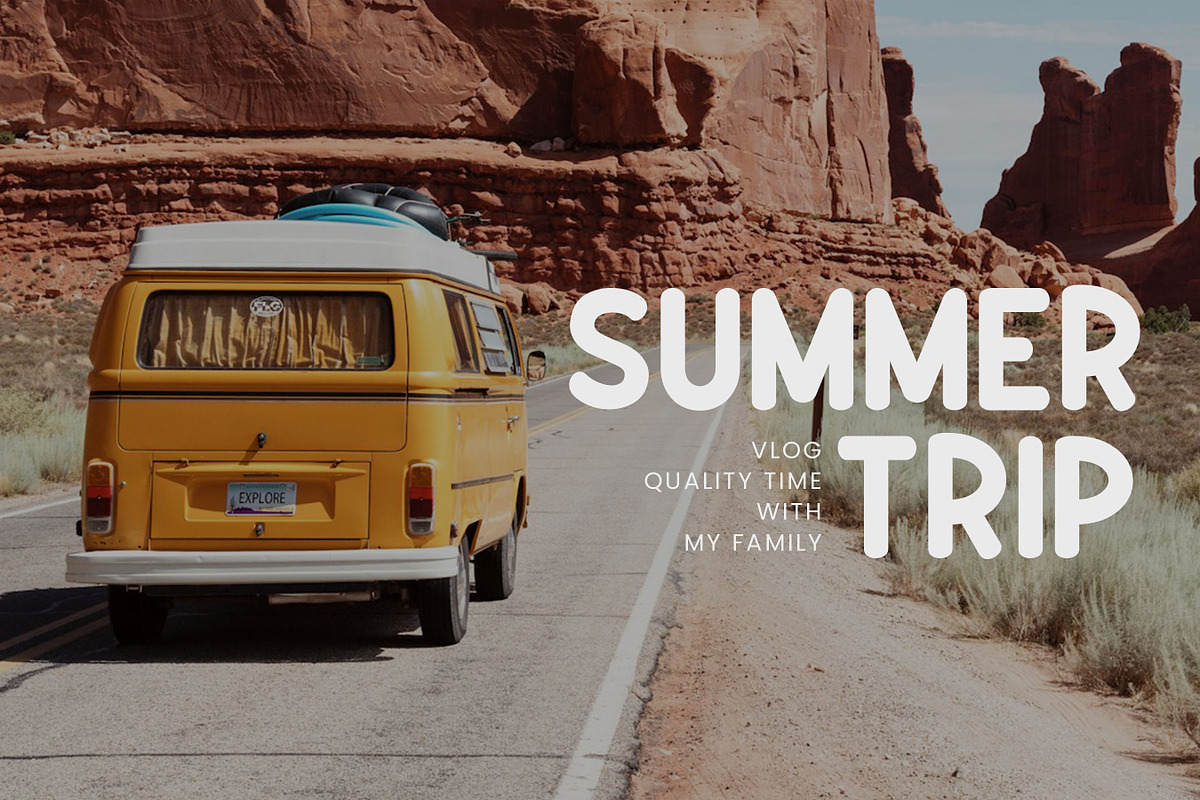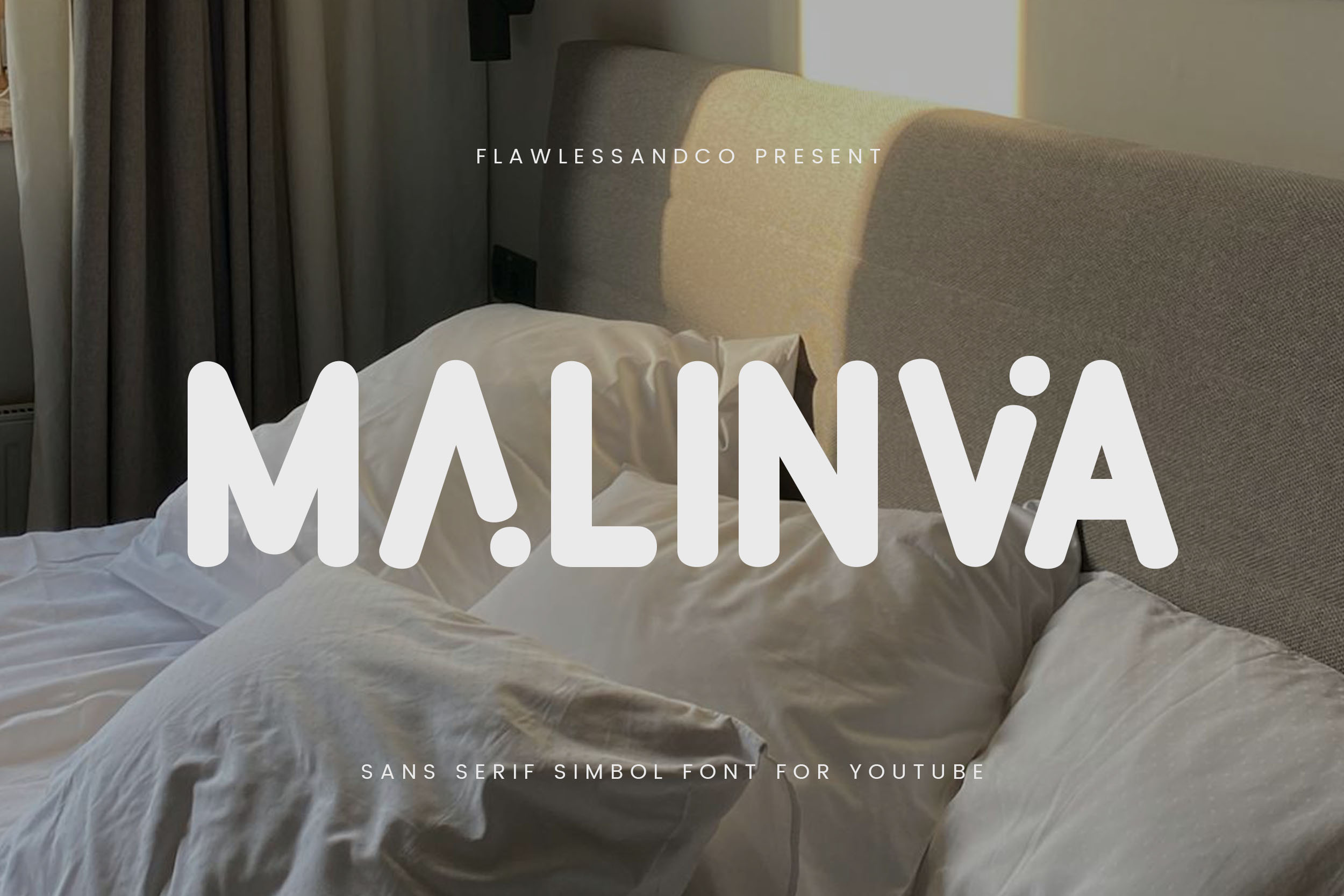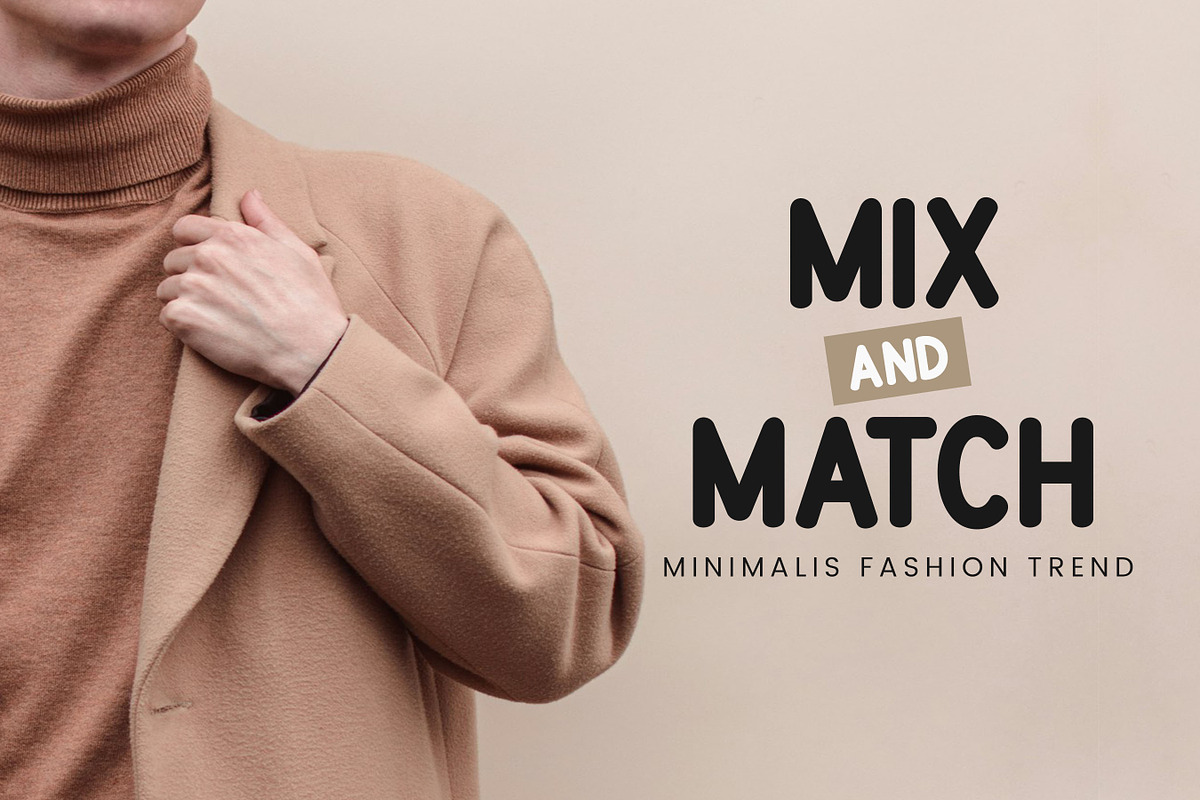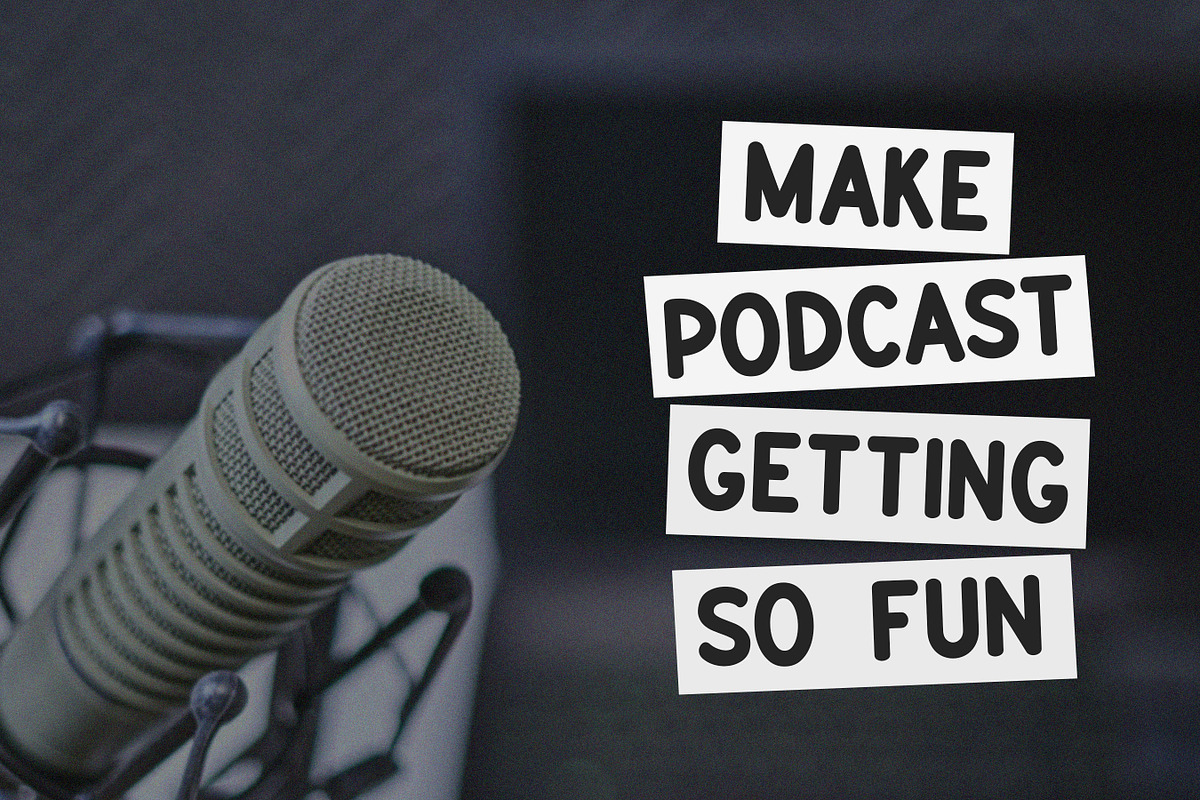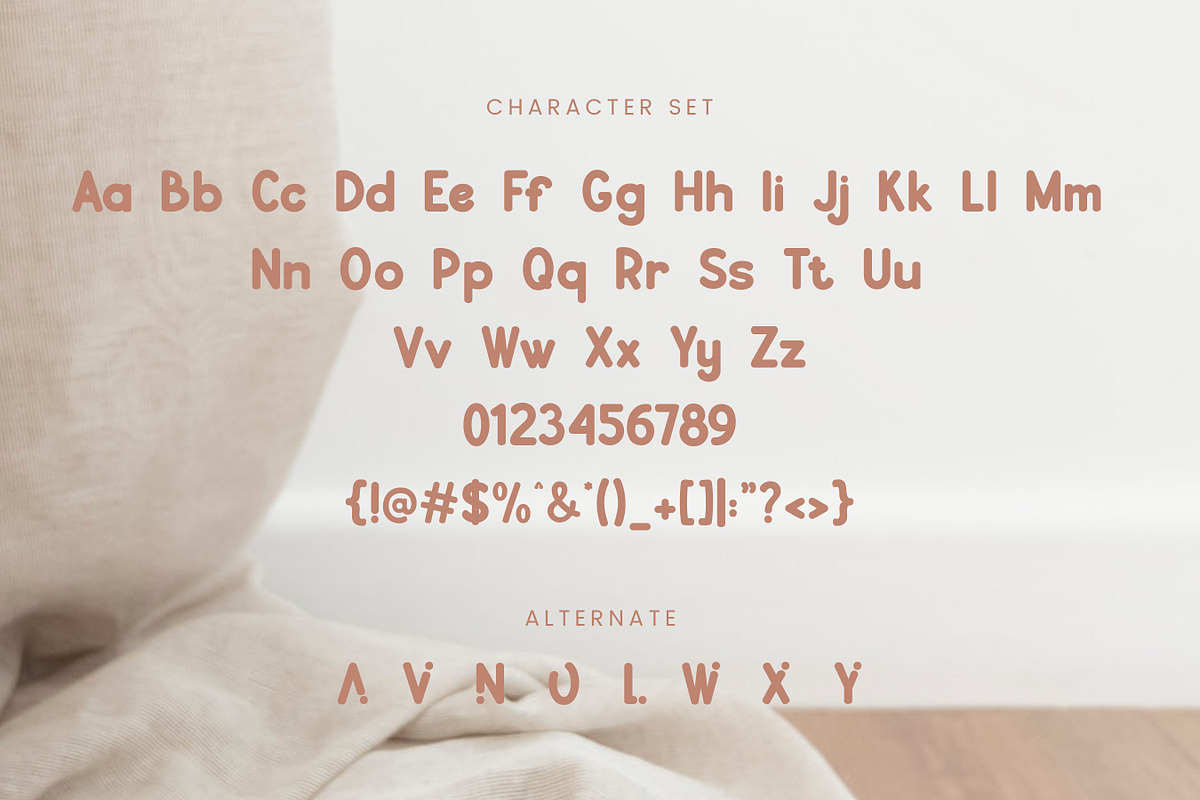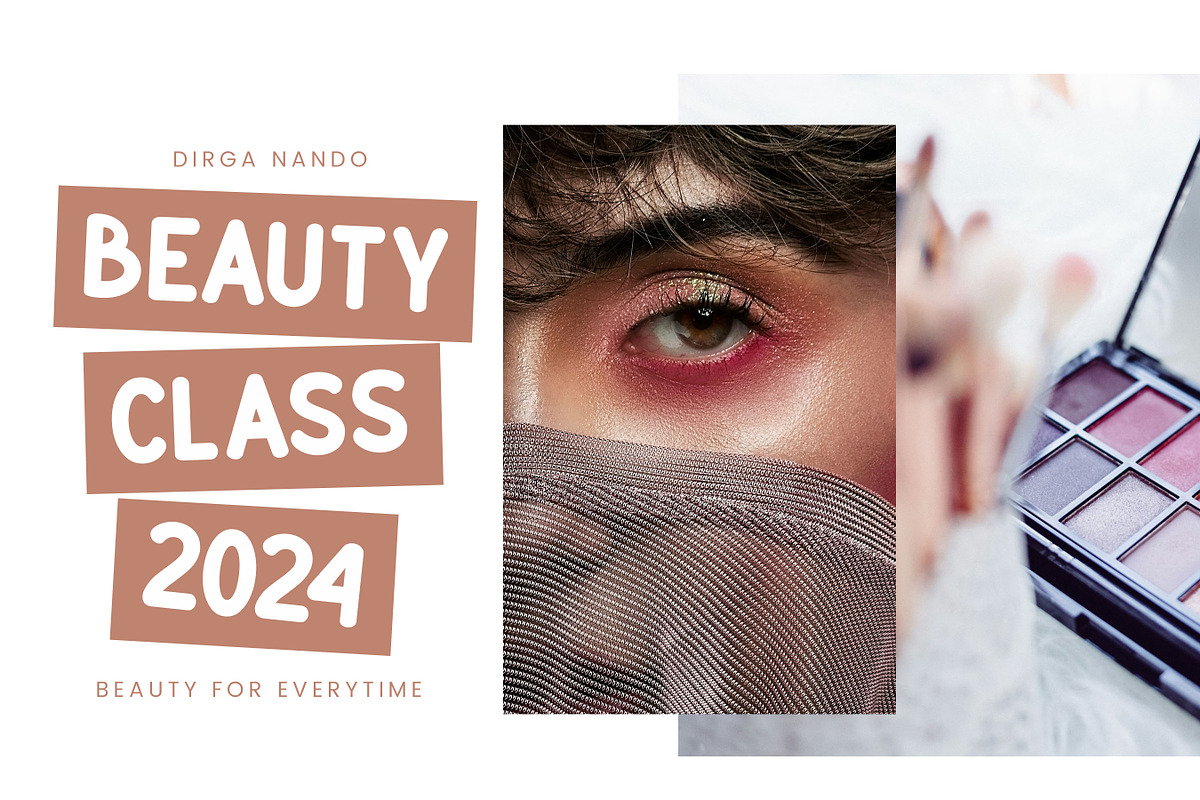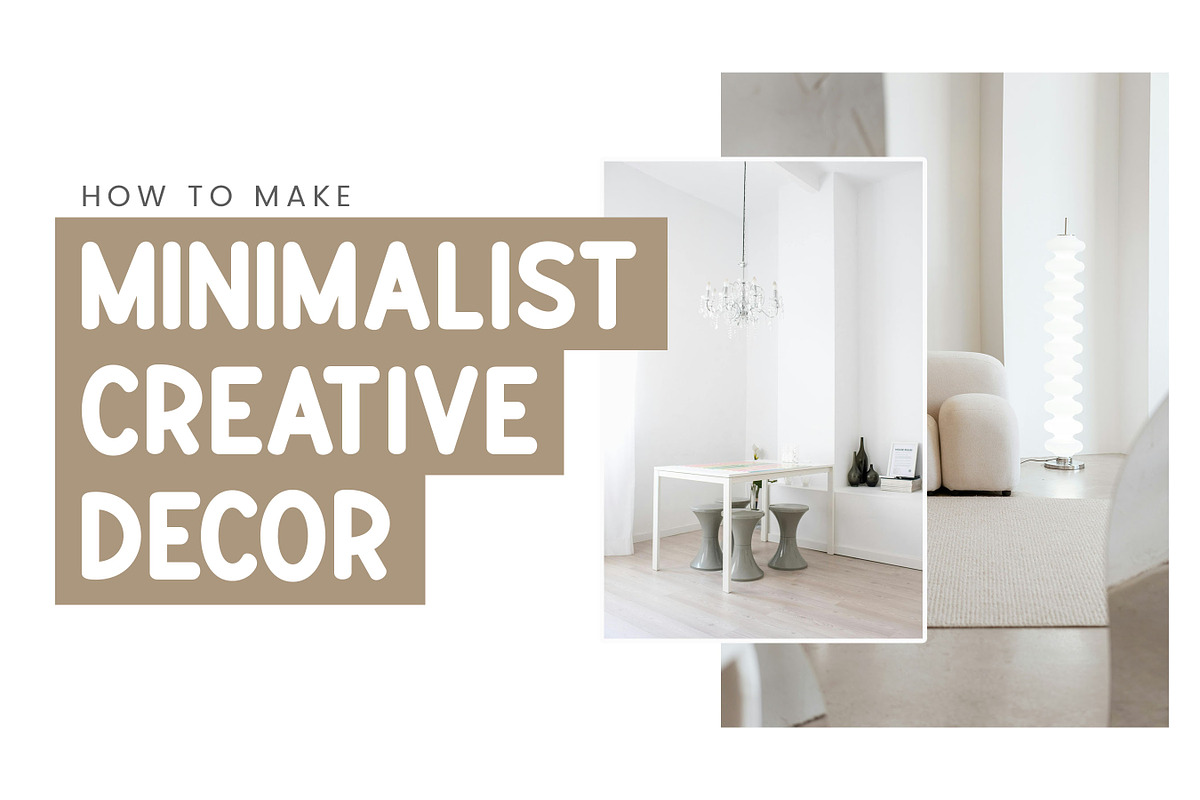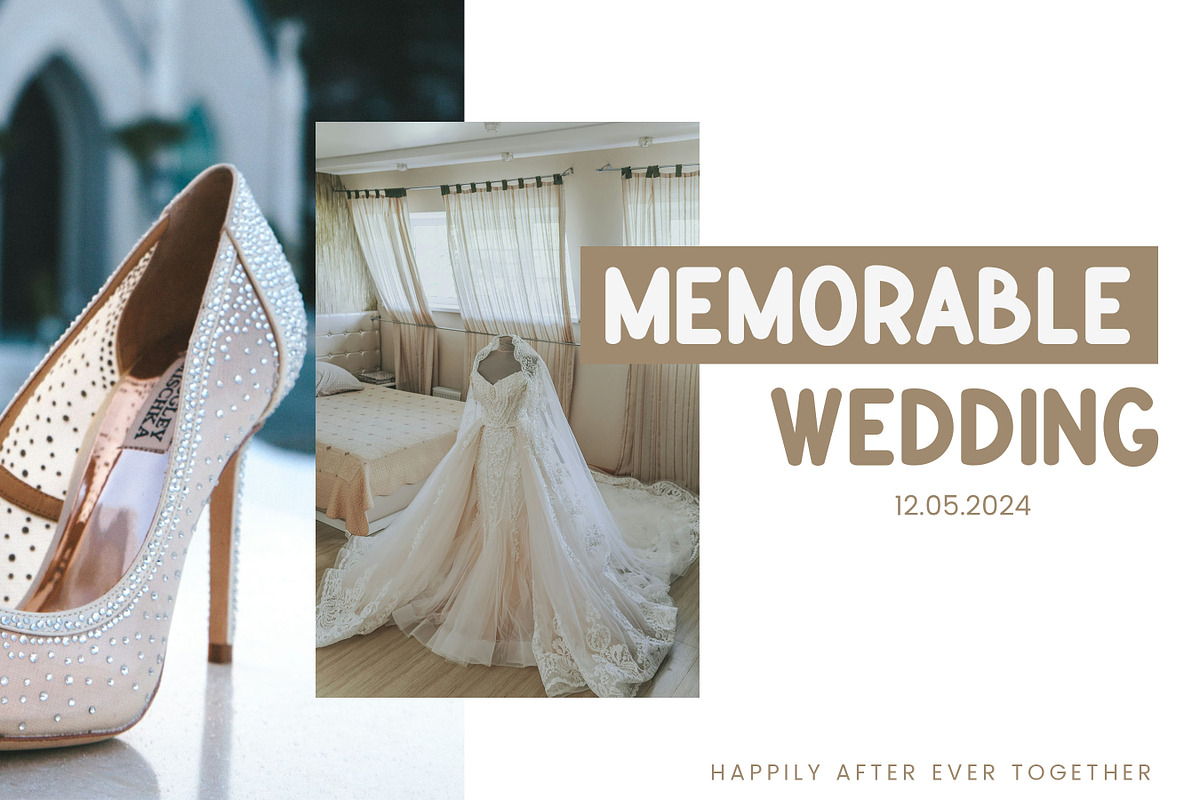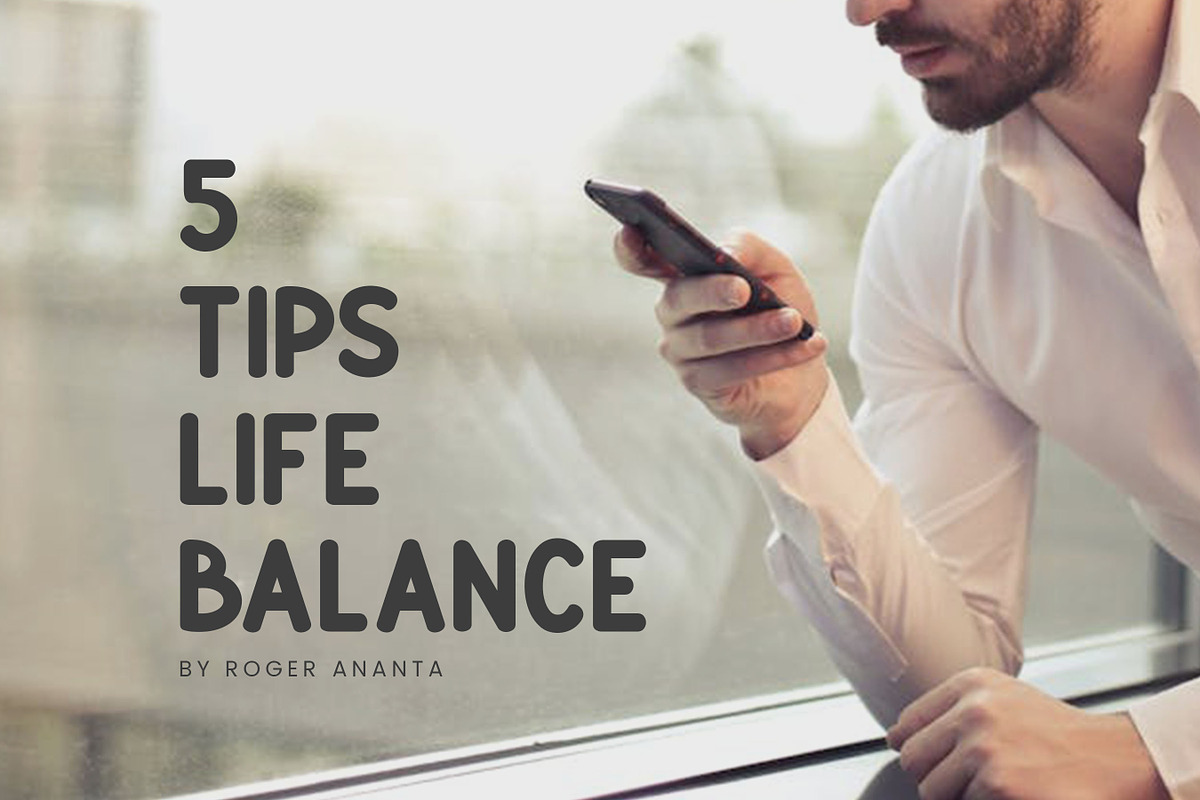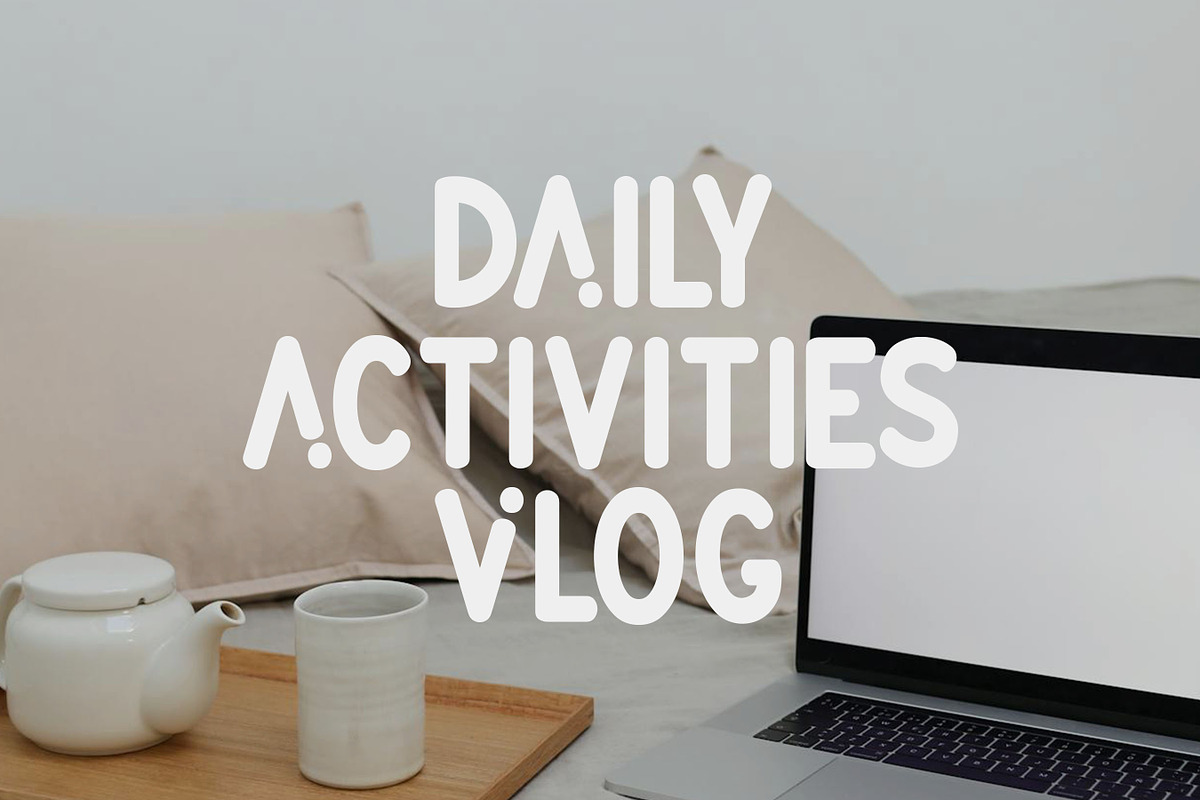
Malinva - Thumbnails Font
Introducing Malinva, a bold and captivating sans-serif font designed to make your YouTube thumbnails stand out from the crowd. With its clean lines and geometric structure, Malinva exudes a sense of modernism and professionalism, perfectly complementing a wide range of YouTube content.